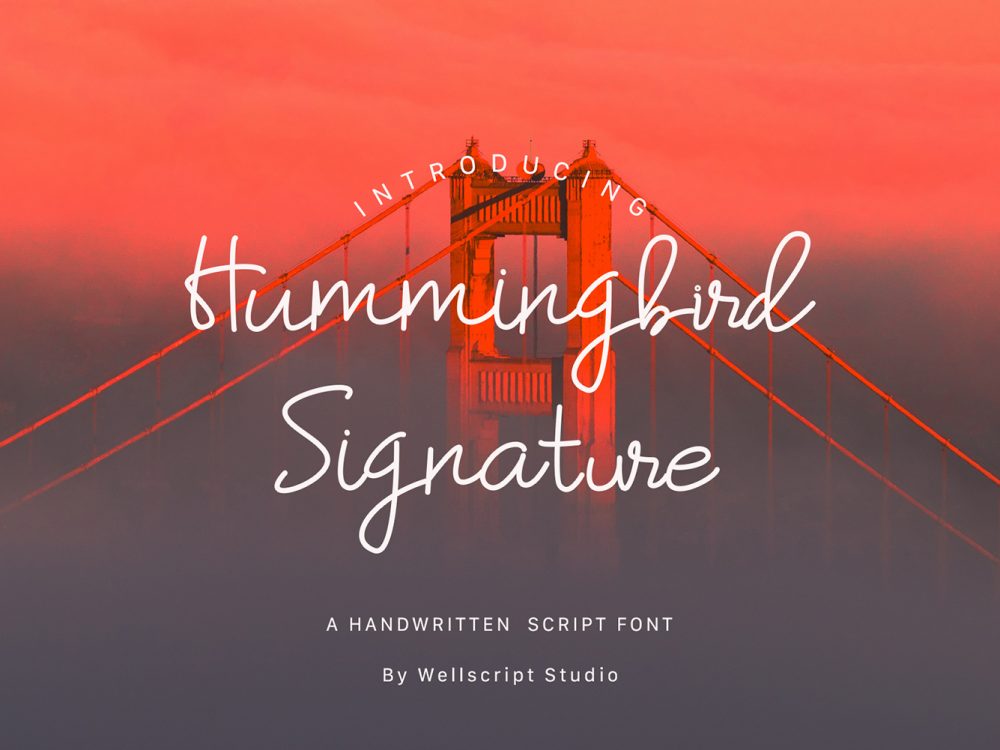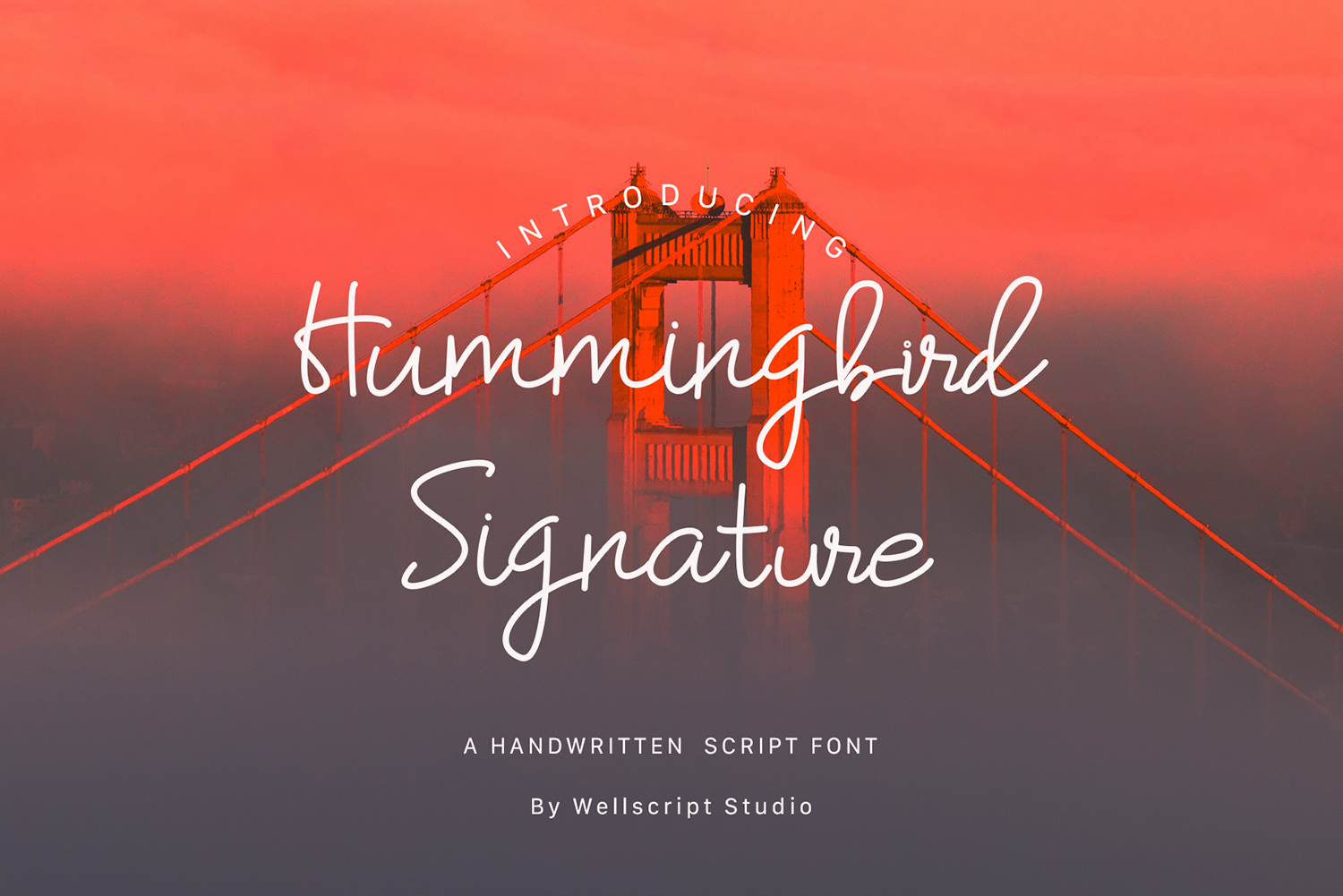
Humming Bird Script Font
Humming Bird Script Font is a beautiful modern handwritten font with elegant weights and a simple style. This font is perfect for a variety of design projects that require a scripted font. These can be posters, wedding invitations, cards, branding, flyers, prints, and more. If you want more features for this font please buy the full version.